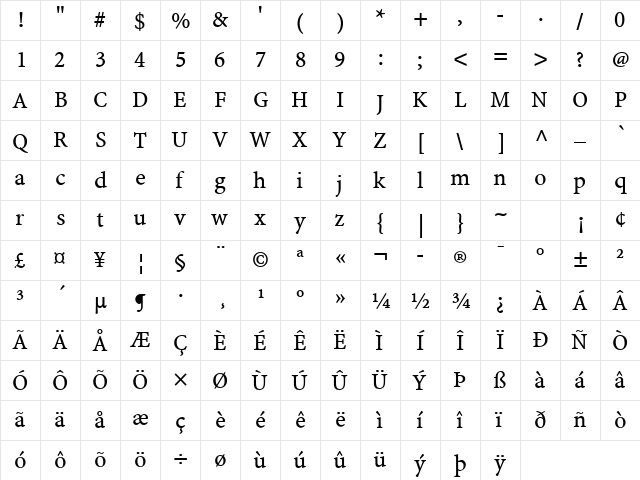
Minion Web Pro Regular
| Foundry | Adobe Systems, Incorporated |
| Designer | Robert Slimbach |
Design Context for Minion Web Pro Typeface
Minion Web Pro offers clean, dependable letterforms without strong stylistic allegiance, making it a practical choice for designers who need flexibility.
Pro Tip: Use Minion Web Pro in both headline and body roles to test its range before committing to a single application.